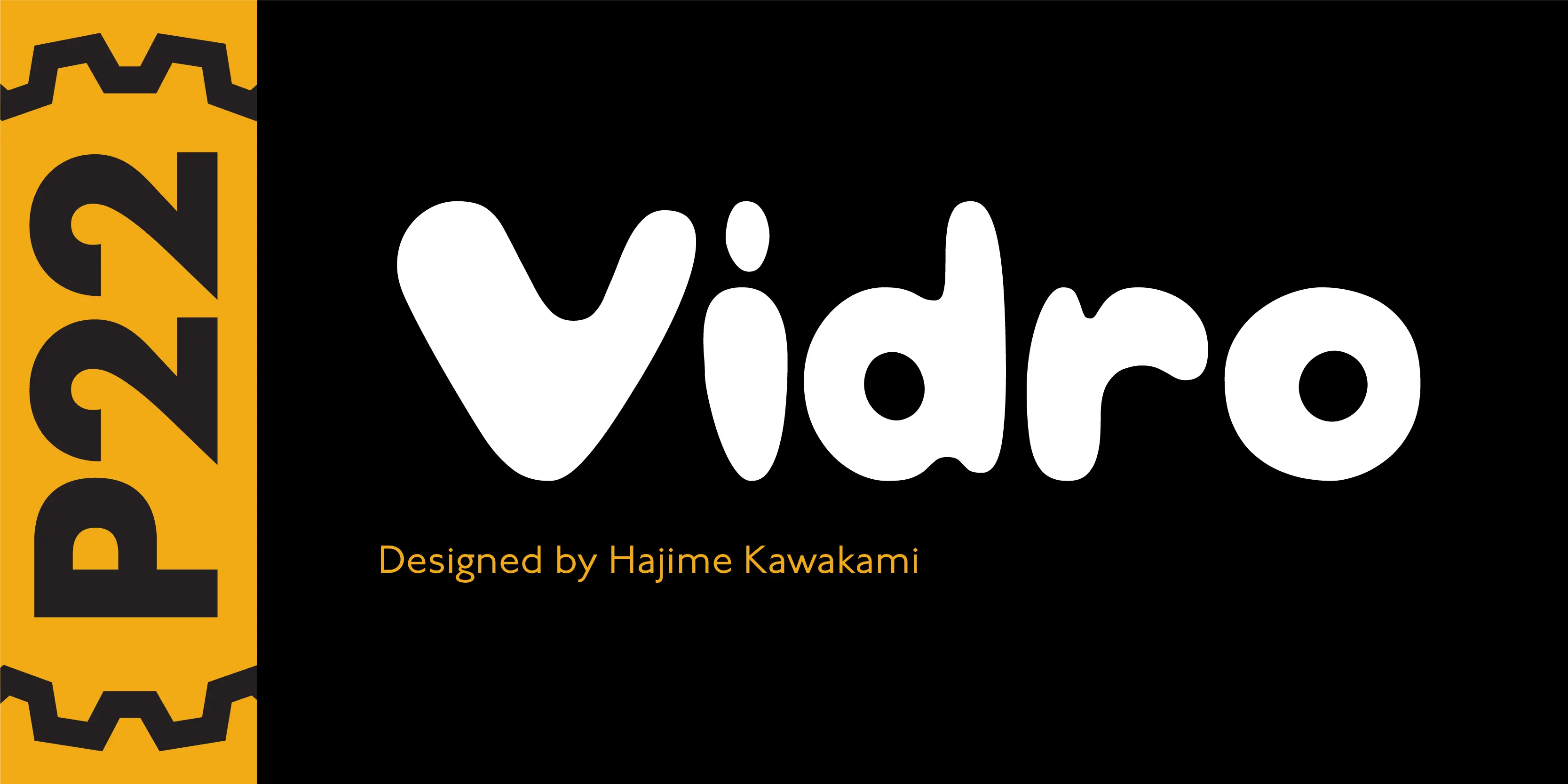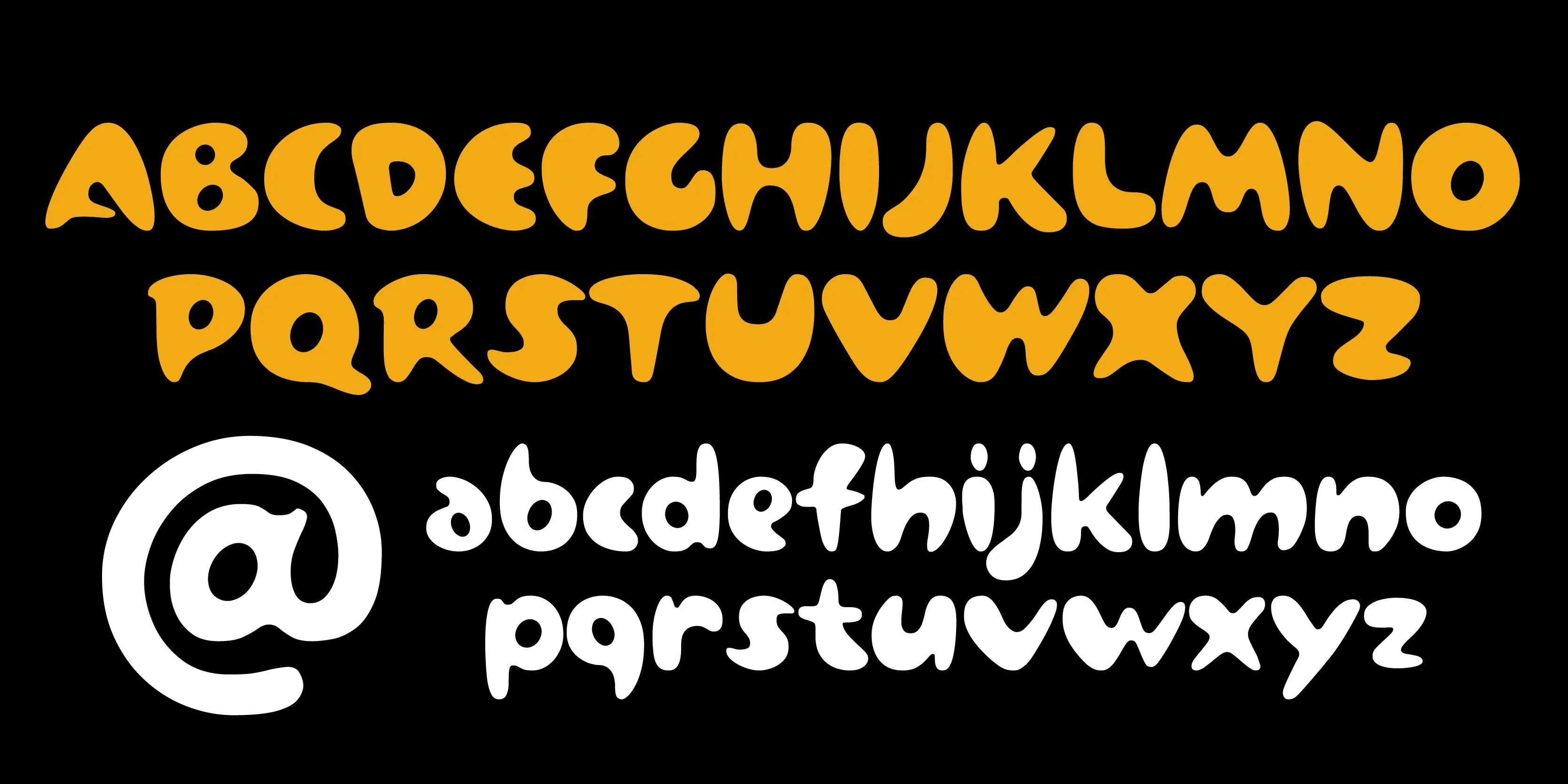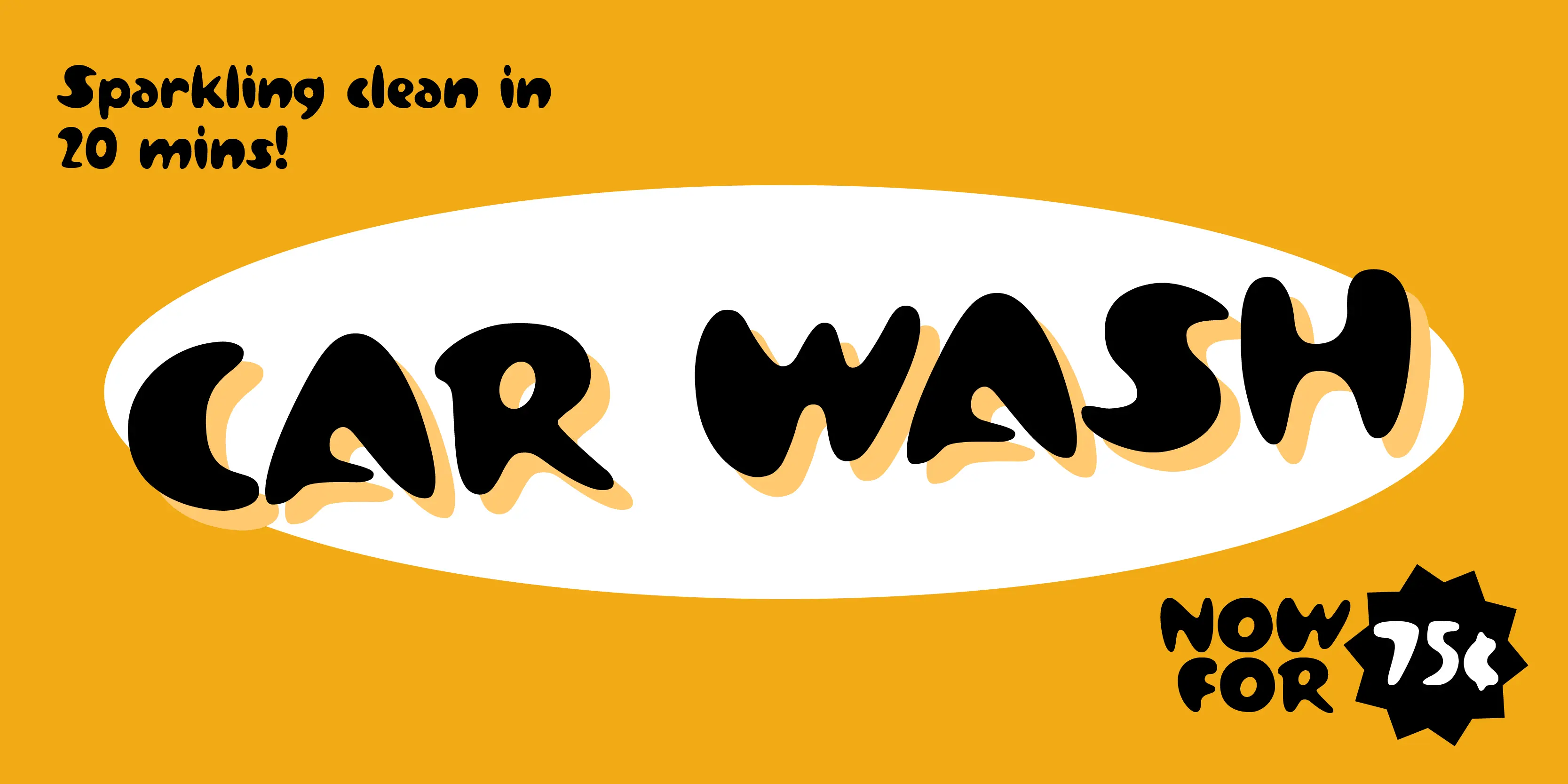
Vidro Font
Vidro
Vidro is a technique introduced by the Dutch in Japan in the 16th century. Vidro glassworks, such as decorations and children’s toys, enrich the lives of Japanese people. P22 Vidro is comprised of simple forms that express both irregularity and fluidity.